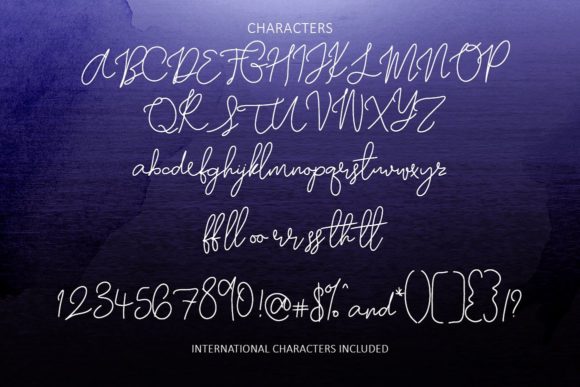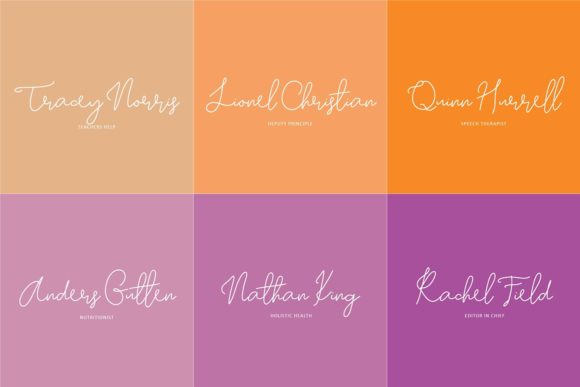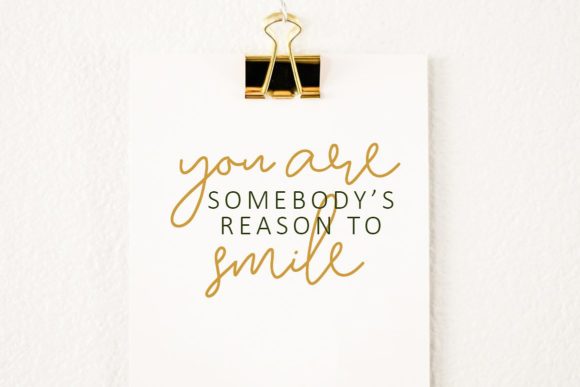
Moonlight Sailing Script Font
About Moonlight Sailing Script Font
The Moonligt Sailing is a gorgeous handwritten font with double ligatures. This signature font has a natural handwritten style and is perfect for adding a personal touch to your designs.